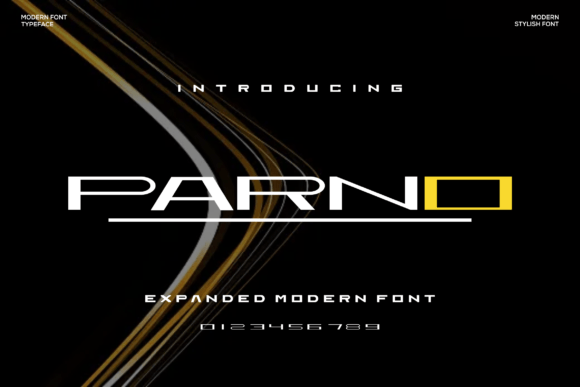
Introduction to Parno Font
Parno is a bold, modern font that looks cool and clean.
Its letters have a square shape, making it perfect for catching attention in logos, headlines, or posters With Parno, your words will stand out with style.
Key Features of Parno Font
Why Choose Parno Font?